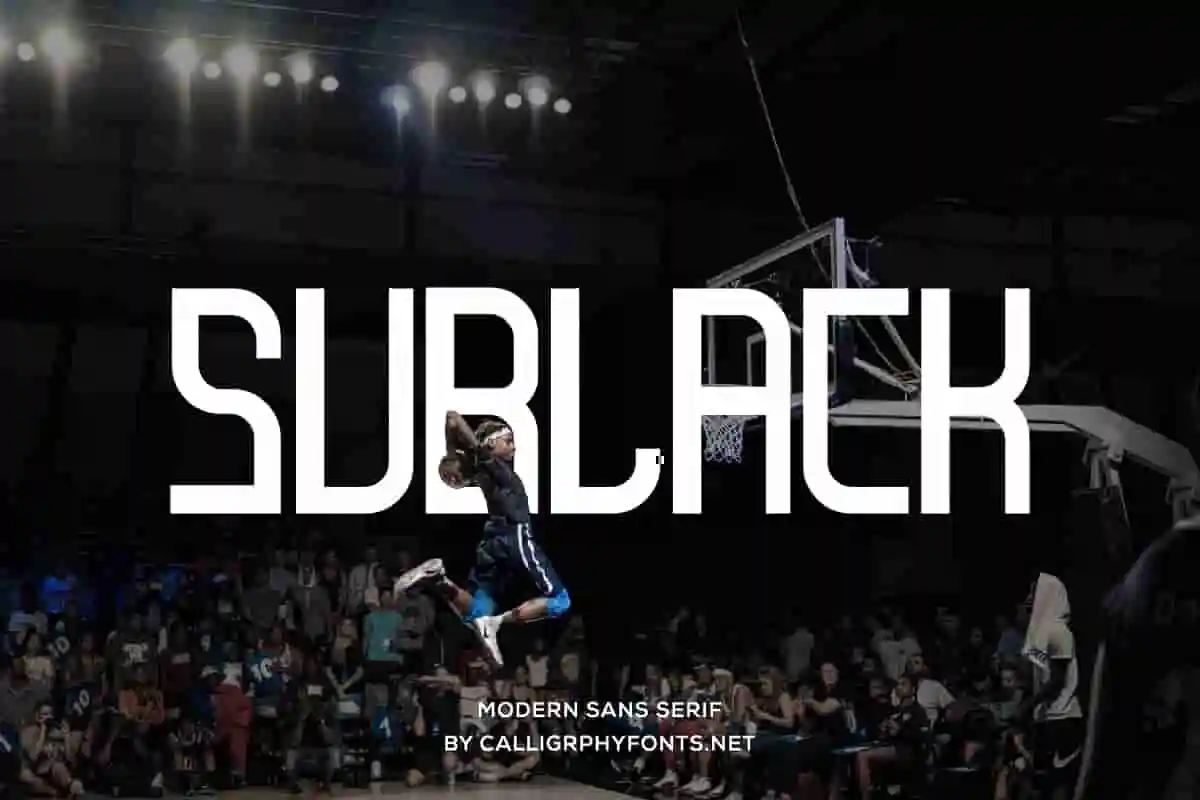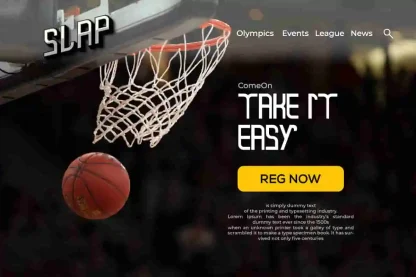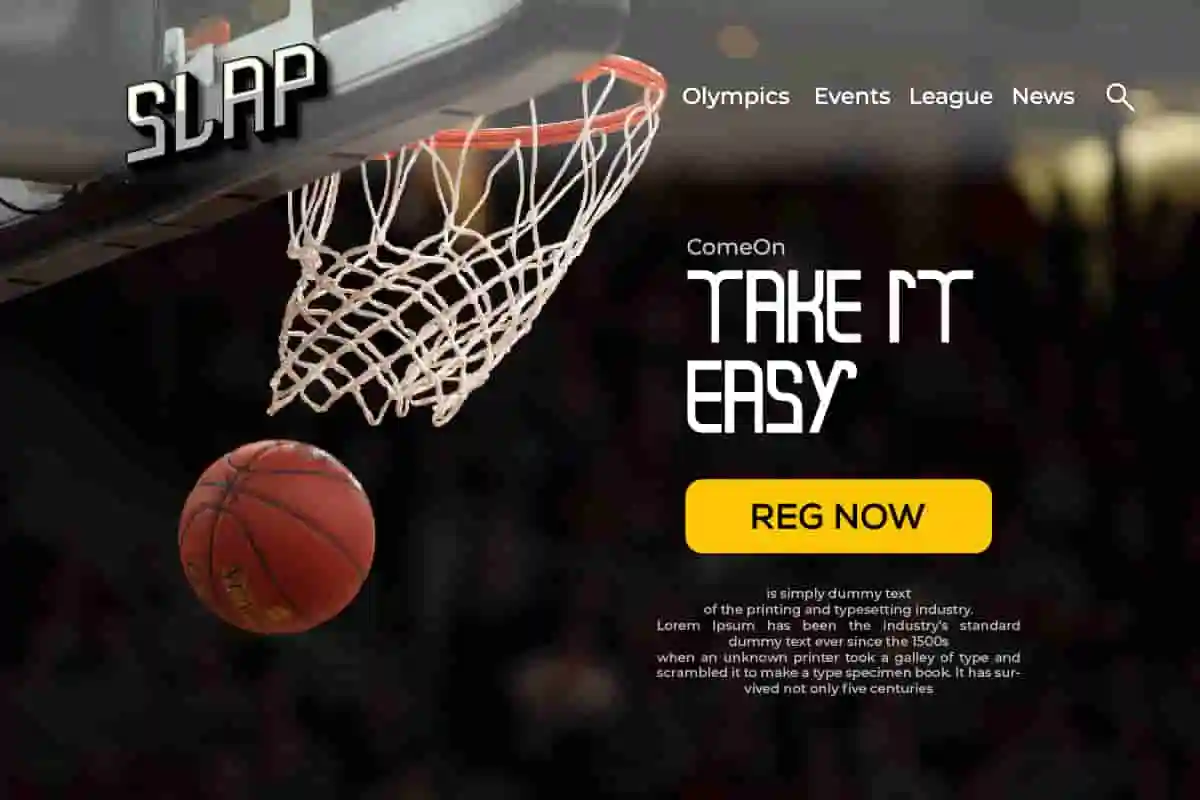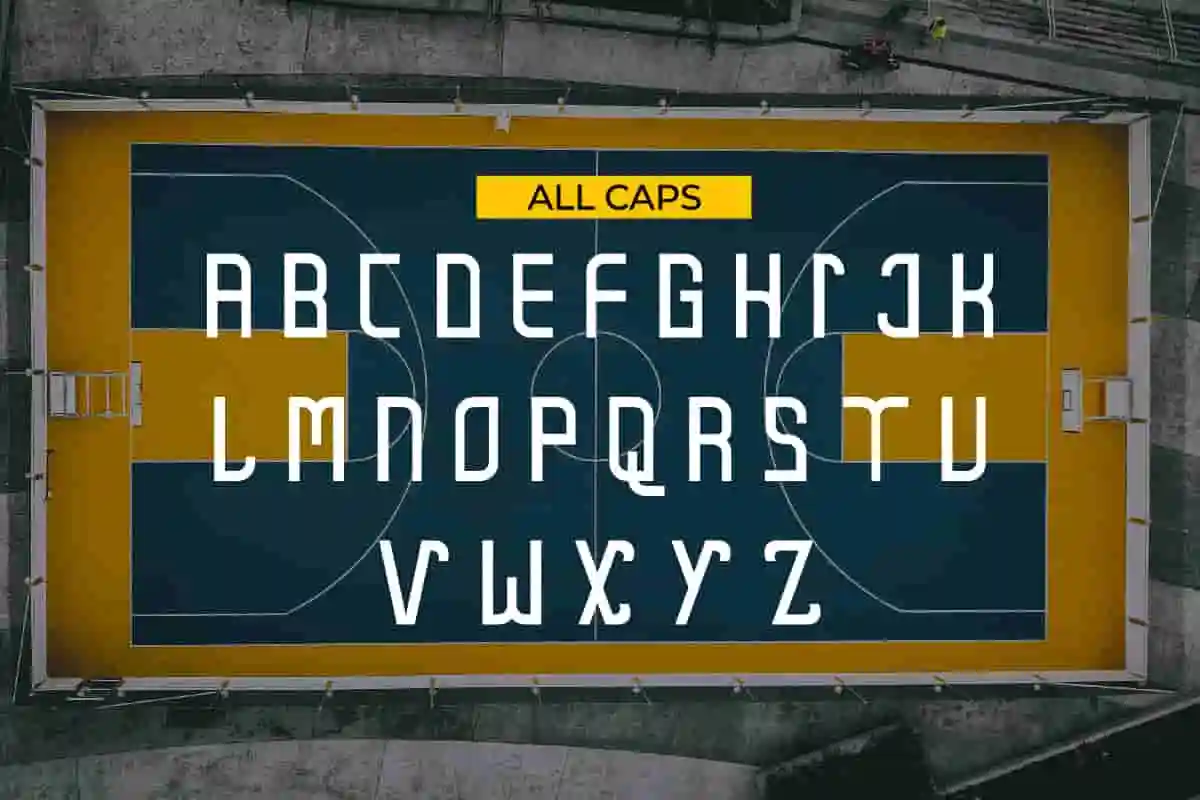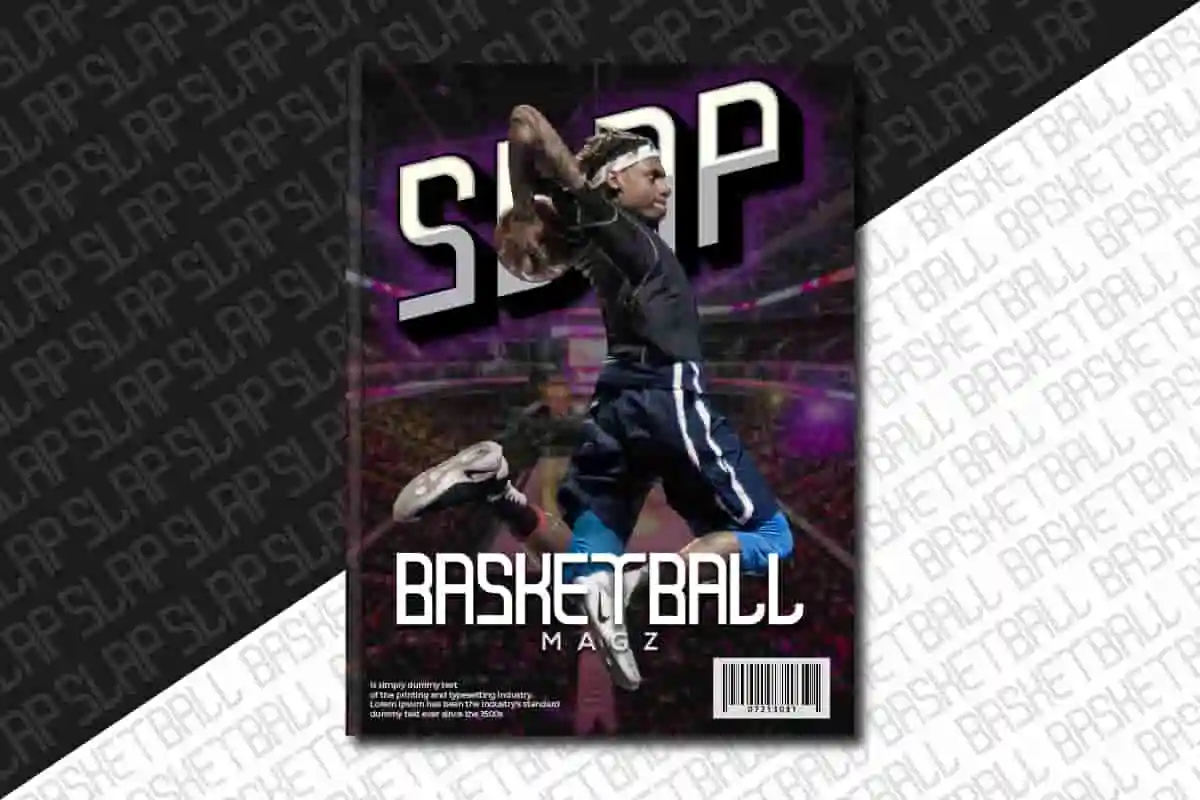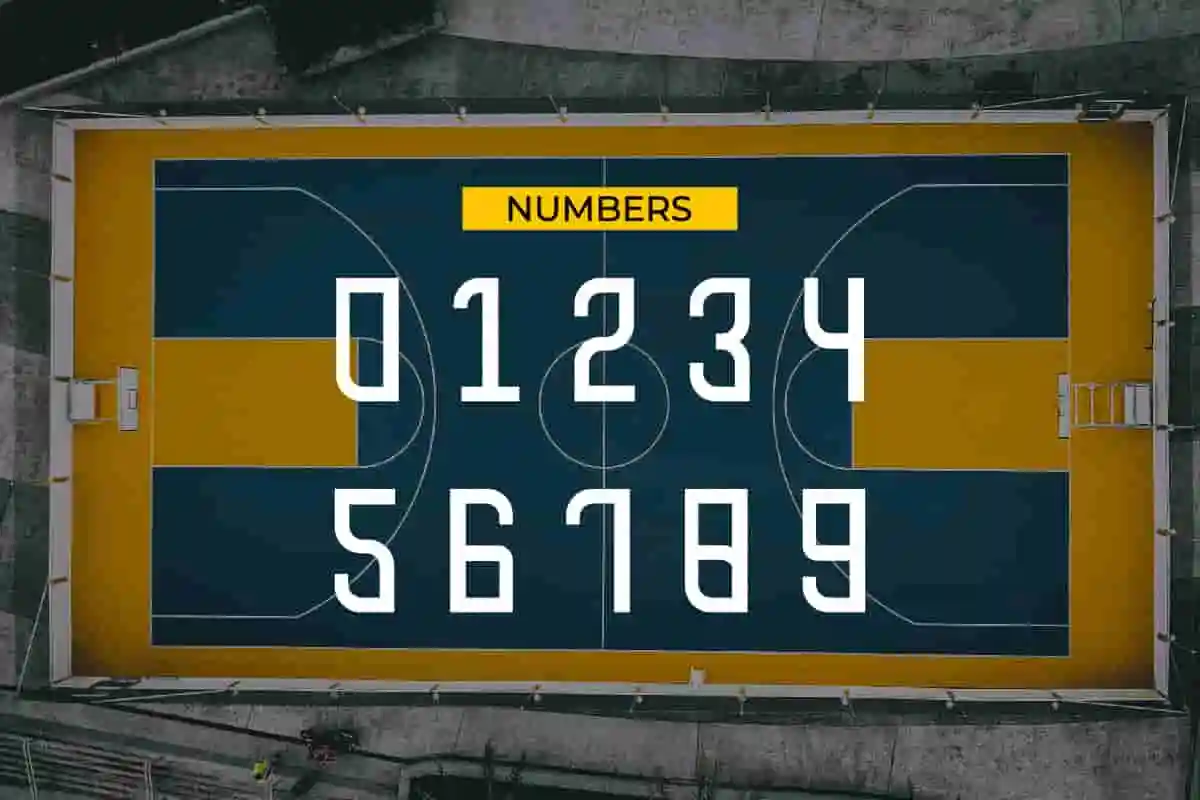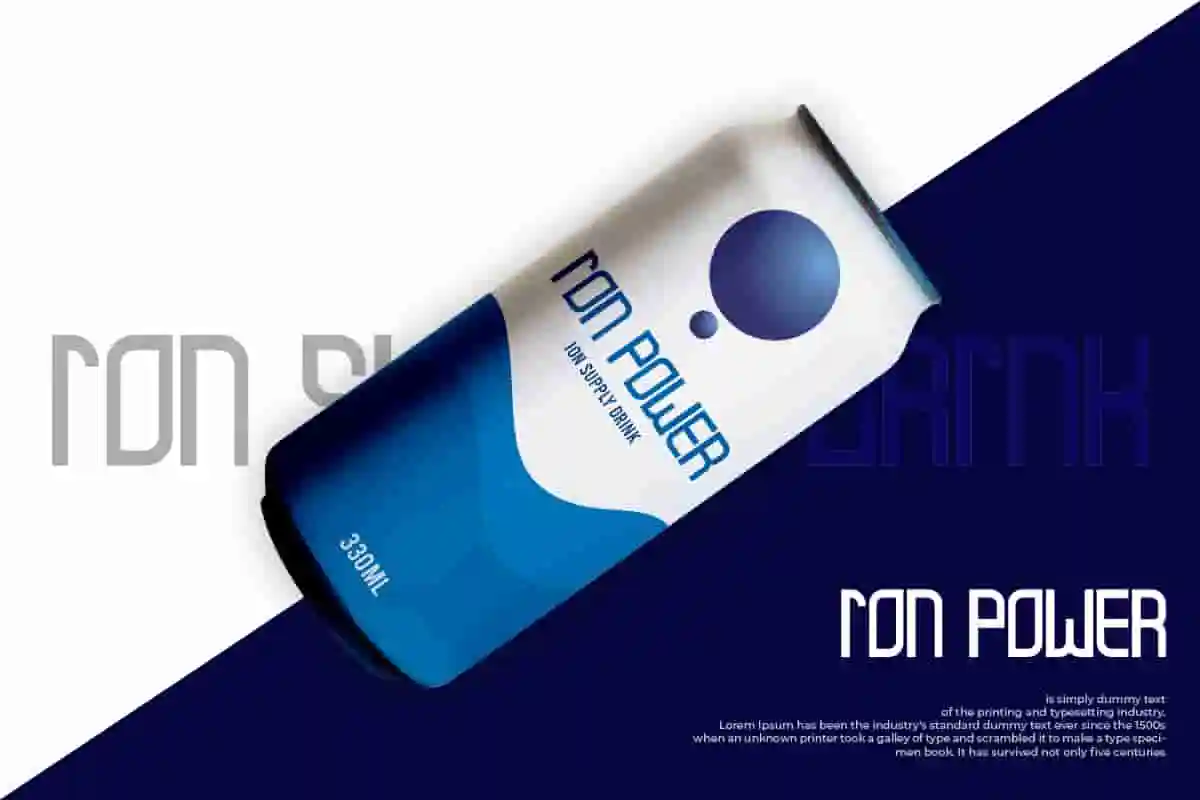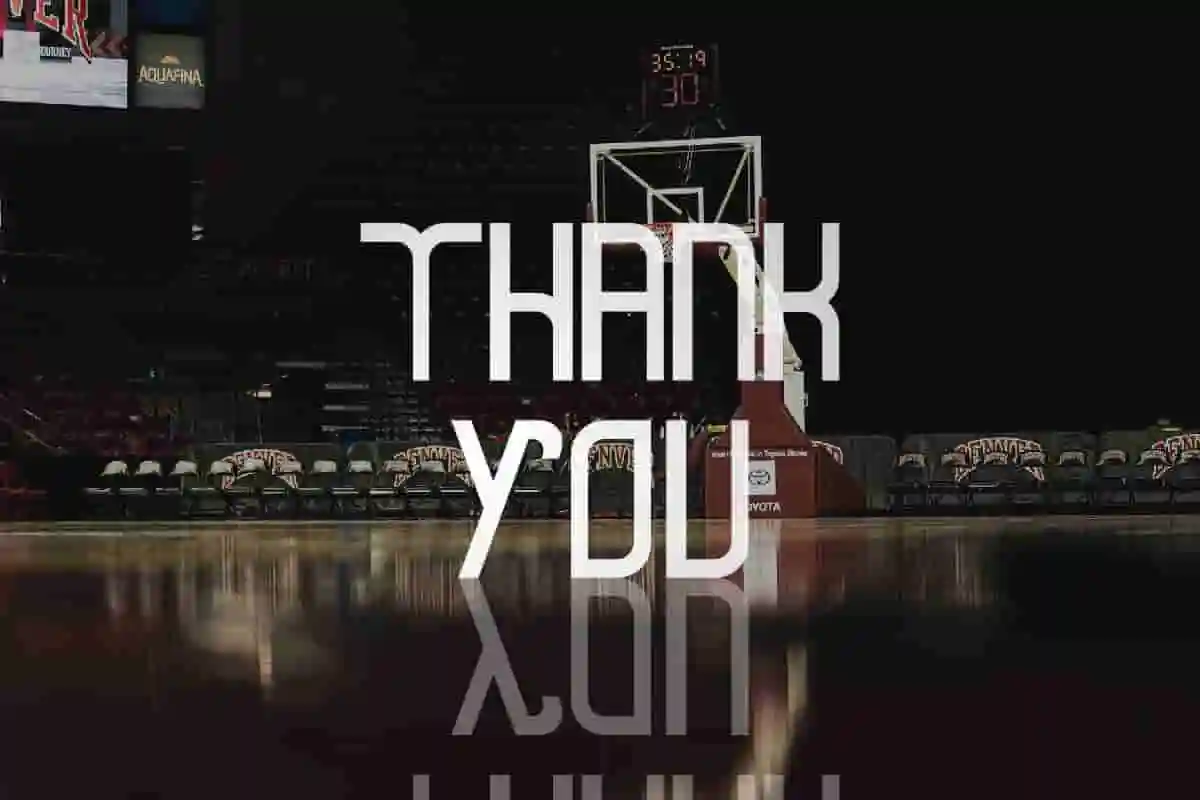
Sublack Display Font
Sublack Font is an exclusive sans serif display font by CalligraphyFonts.net. Sublack will be Great for many purposes : logotype, headlines, brandings, packaging, quote etc
Sublack Font is a Display Sans Serif Font with elegant modern style. The character of the font is modern, elegant, luxury, glamour, classic and sophisticated.
Introducing Sublack Display Font, a bold and modern typeface crafted to make a statement. Designed with powerful lines, sharp edges, and a clean structure, Sublack is the perfect font for posters, headlines, logos, branding, and editorial layouts that demand attention.
This striking display font is all about clarity and strength. Whether you’re designing for tech, fashion, sports, or entertainment, Sublack ensures your message is delivered with bold confidence and unmistakable style.
Sublack Display Font is built for visibility. Its thick strokes and geometric balance make it perfect for large-scale designs such as banners, product packaging, posters, and social media graphics. Pair it with a minimalist font for contrast or let it stand alone for a bold typographic statement.